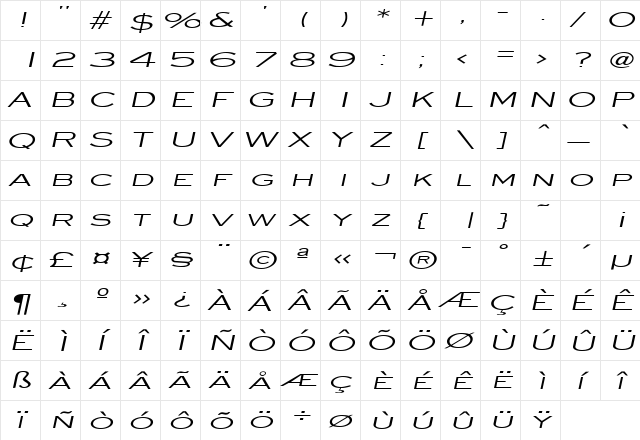
Eye glass Extended Italic
Design Context for Eye glass Extended Typeface
Eye glass Extended is a composed and adaptable typeface that performs quietly and consistently across a wide range of design contexts. The dynamic lean of this cut emphasises speed and emphasis in any layout.
Pro Tip: Try Eye glass Extended for annotation and caption copy alongside an upright companion — the contrast in angle creates a dynamic but ordered typographic system.